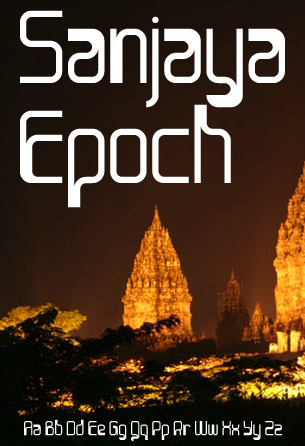
Some lovely characters in this design. The strength of line where two lines meet (A,B,E,F etc) is great ... but it does leave the remaining characters (C,D,I,J etc) look a bit weak. Still worth 10/10
I have no idea with letters which had only one line XD